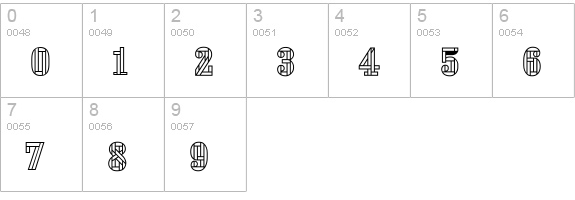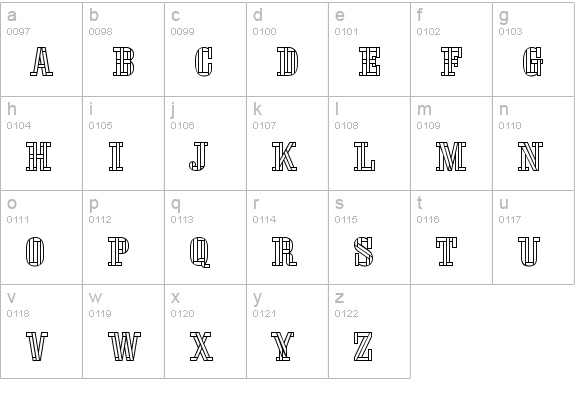
Stencil FourReversed Font Details
Stencil FourReversed font is a unique and eye-catching typeface that combines modern aesthetics with a touch of retro charm. Its bold and striking design makes it perfect for headlines, posters, and branding projects that require a strong visual impact. The reversed stencil effect adds an interesting twist to the traditional stencil font style, giving it a fresh and contemporary look. What sets Stencil FourReversed font apart is its versatility and ability to stand out in various design contexts. Whether you're working on a futuristic tech startup logo or a vintage-inspired packaging design, this font will help you make a bold statement. Best of all, Stencil FourReversed font is completely free to download at FontsMarket.com. So, don't hesitate to add this stylish and distinctive typeface to your font collection today and elevate your design projects to the next level.